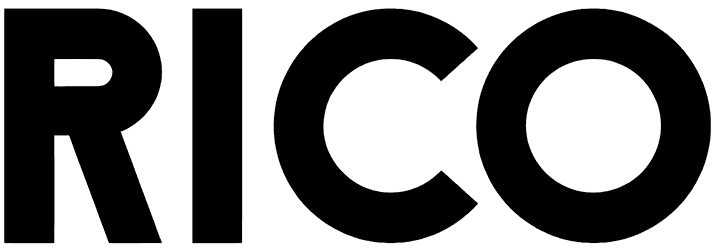
Rico Font
Since you use a sans-serif font like the present item for your modern and professional design, the result will be humble and salient at the same time. Rico font is a nice selection to bold your words in titles or texts with a strong vibe. It doesn’t support lowercase letters, numbers, or punctuation marks, but as an all-caps font, you can count on it to be matched with any topic.